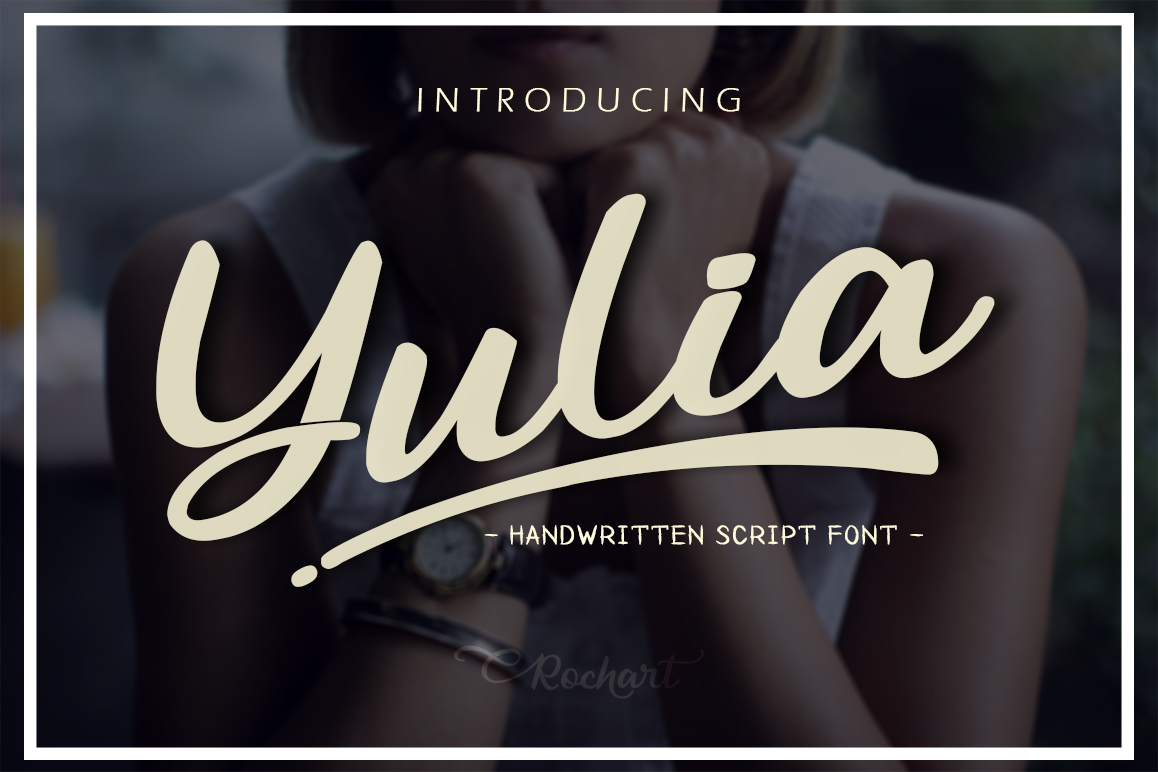
Yulia Script
Yulia Script Font
Hello! We introduce our new product called Yulia script. The Yulia script is a modern Calligraphy Script font. We give you a alternate to make your design look more awesome.Yulia Script has a multilingual Support. Yulia Script is great for logotype, Branding Design, Logo Design, Digital Lettering Arts, T-Shirt/Apparel, Poster, Magazine, Signs, Advertising Design, wedding invitation and any hand lettered needs.